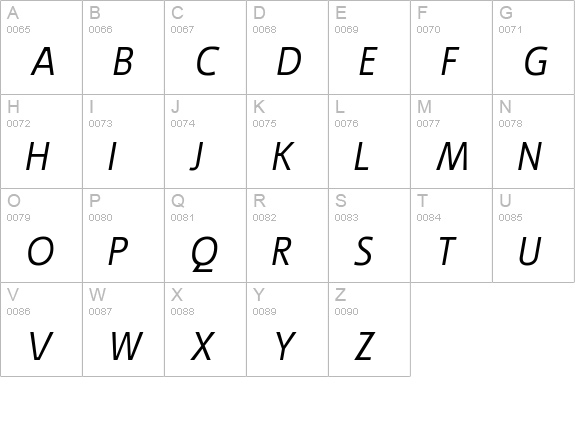
Ligurino Italic Font Details
Ligurino Italic is a distinctive, italic variant in the Ligurino typeface family \xE2\x80\x94 well suited to design and typography projects.
Ligurino Italic font is a sleek and modern typeface that exudes elegance and sophistication. Its fluid curves and gentle slant give it a touch of class, making it perfect for projects that require a stylish and refined look. The graceful lines of Ligurino Italic effortlessly convey a sense of sophistication and luxury. This stunning font is not only visually appealing, but it also offers excellent readability, making it versatile for a wide range of design applications. Whether you're creating invitations, branding materials, or editorial layouts, Ligurino Italic will elevate your projects with its timeless charm and sophistication. Best of all, Ligurino Italic font is available for free download at FontsMarket.com. This means you can easily access this beautiful typeface and enhance your designs without incurring any additional costs. Don't miss out on the opportunity to add Ligurino Italic to your font collection and bring a touch of elegance to your projects today.